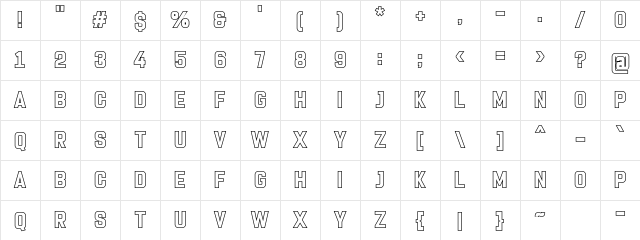
Complete Brotesque Hollow glyph index. Displaying only characters natively supported by Brotesque Hollow font.
Brotesque is a composed and adaptable typeface that performs quietly and consistently across a wide range of design contexts.
Who designed the Brotesque Hollow font?